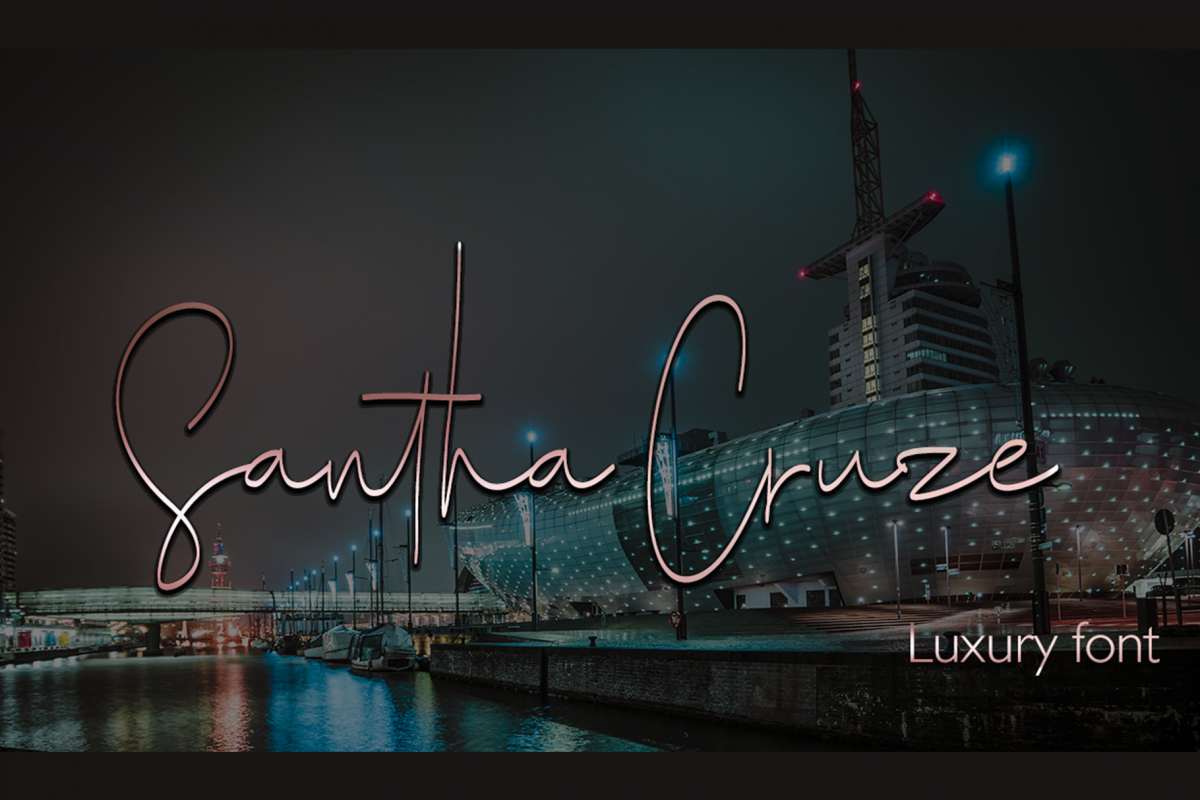
Santha Cruze
A new idea to create a logo and brand and other craft needs, this font looks attractive, cute, elegant, this font is also overlooked by a touch of the hand that is so unique 8 to be presented,